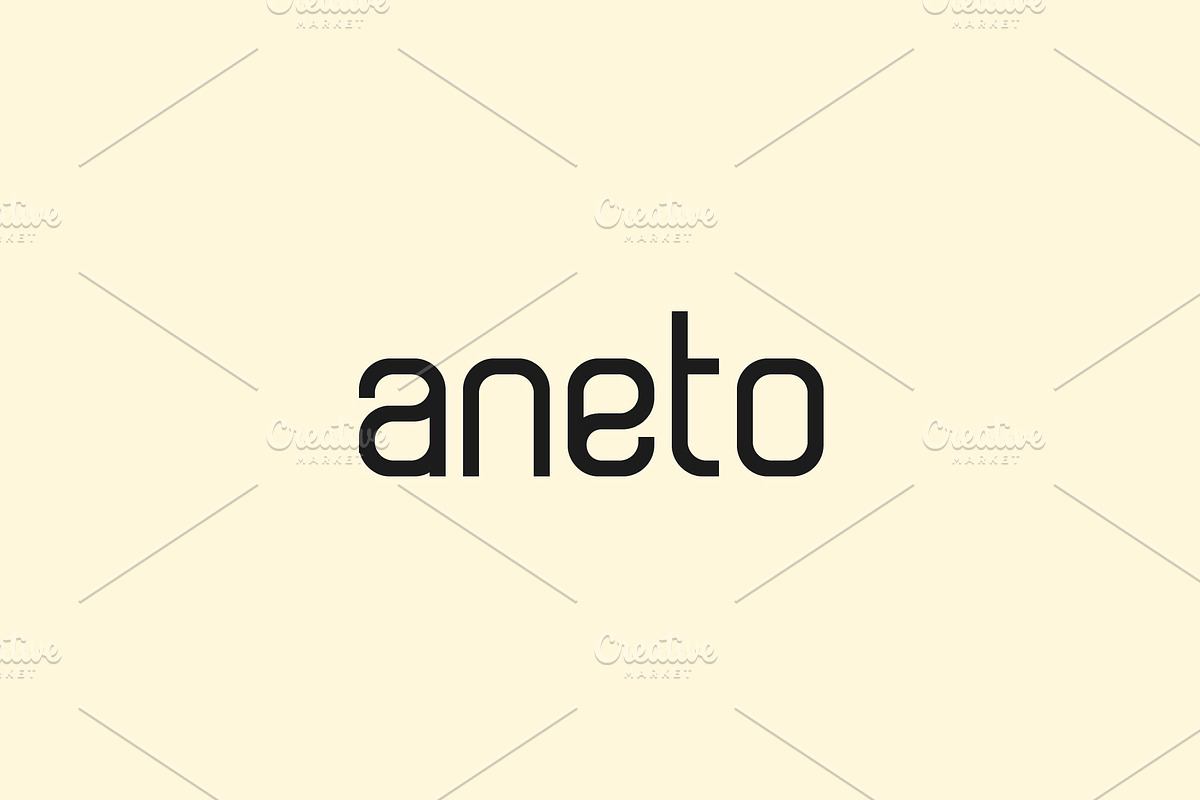
Aneto Sans Serif Font Free Download is a clean, modern typeface that delivers simplicity, balance, and professionalism. With its smooth curves and minimalistic structure, Aneto is ideal for branding, editorial layouts, website design, tech startups, presentations, and minimalist packaging.
Designed for versatility and readability, Aneto works well in both display and body text. Its geometric construction gives it a contemporary feel, while its subtle humanist touches keep it warm and approachable—perfect for both corporate and creative projects.